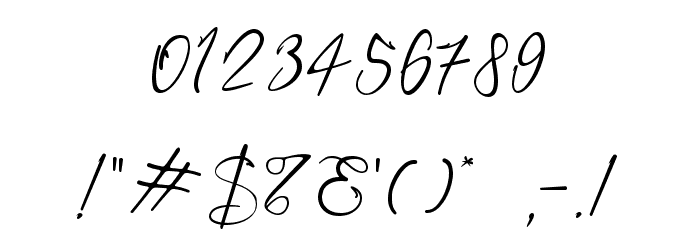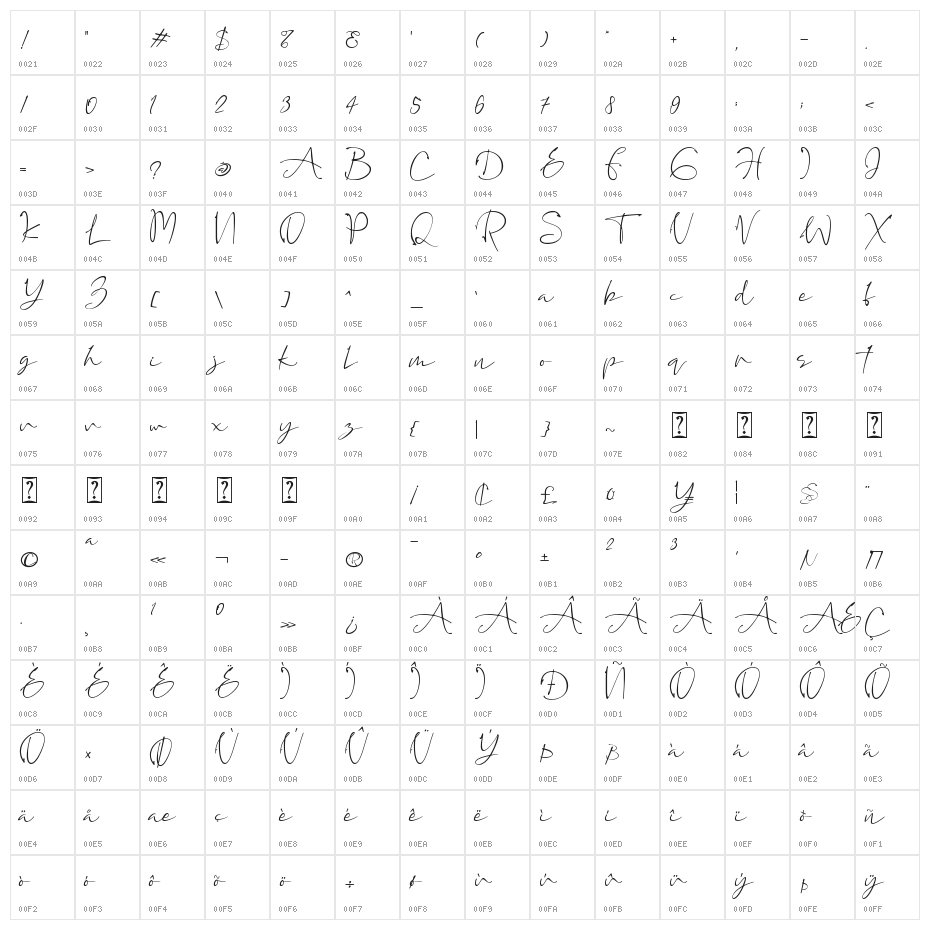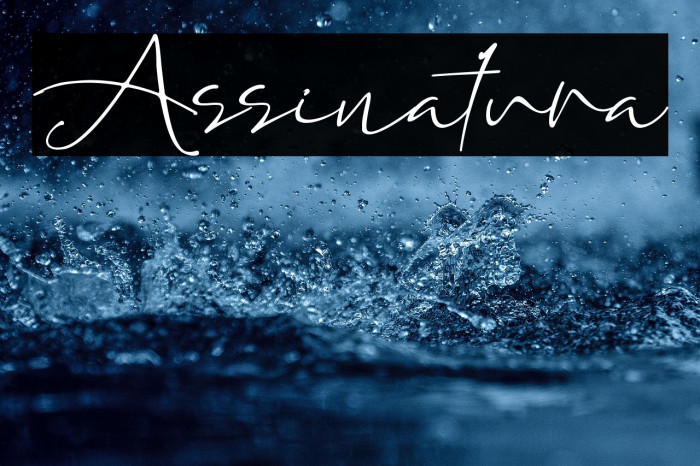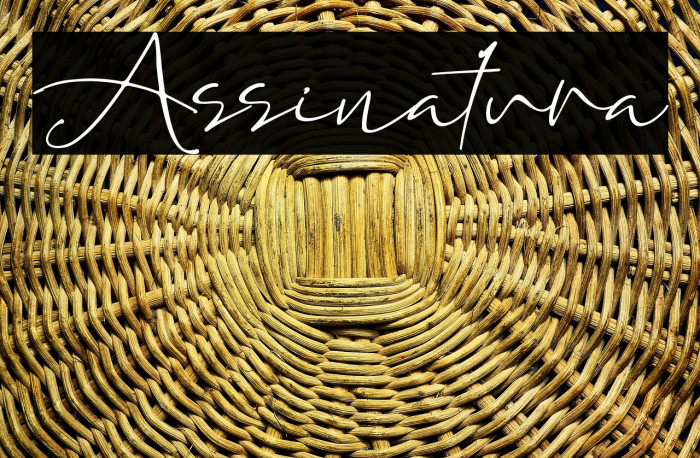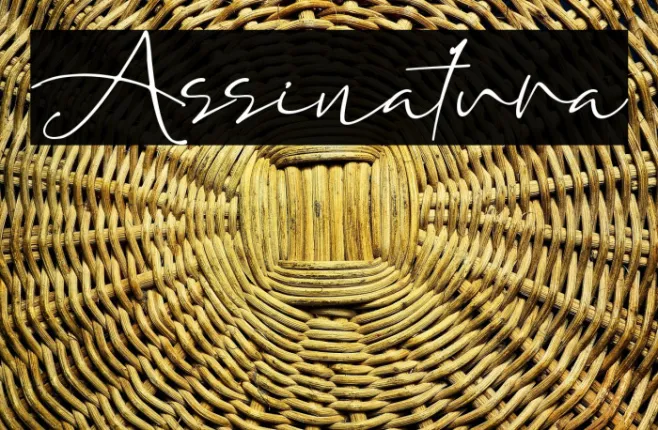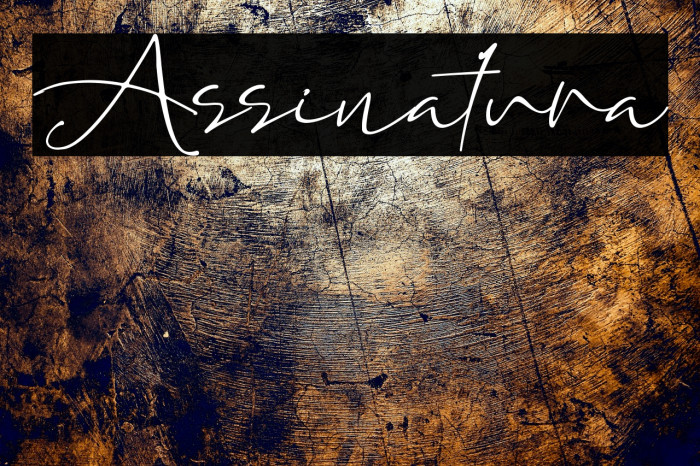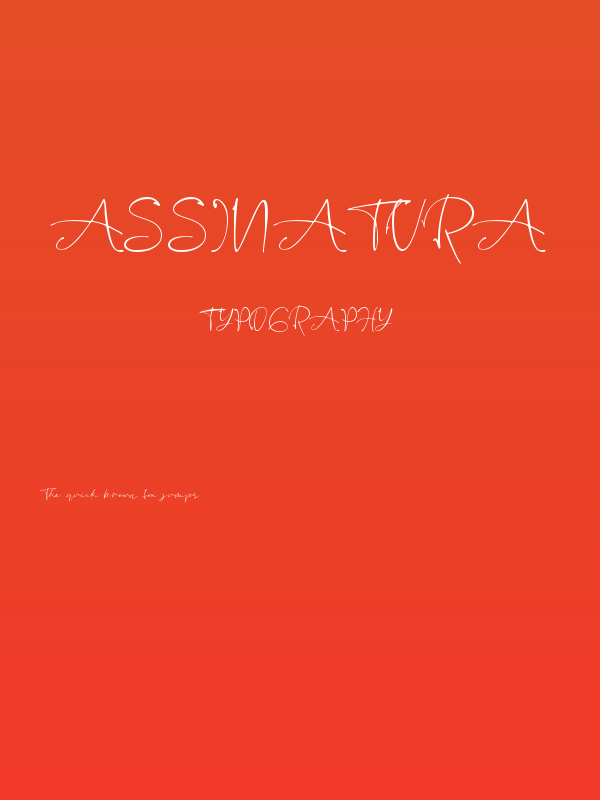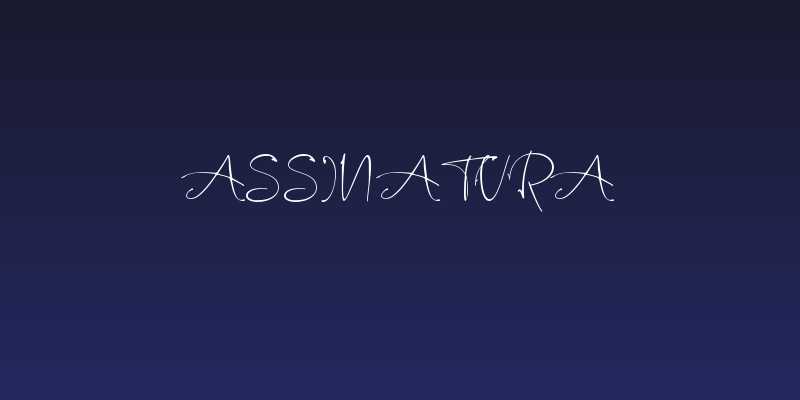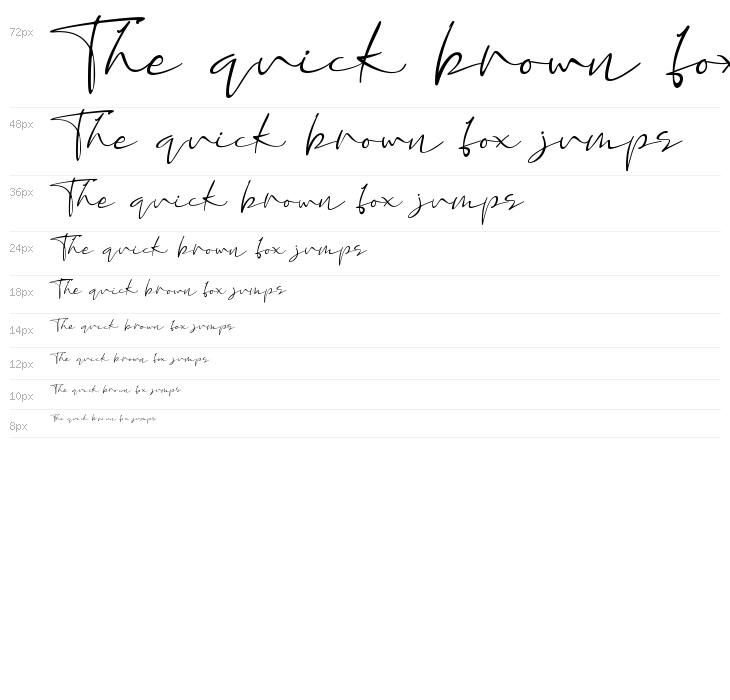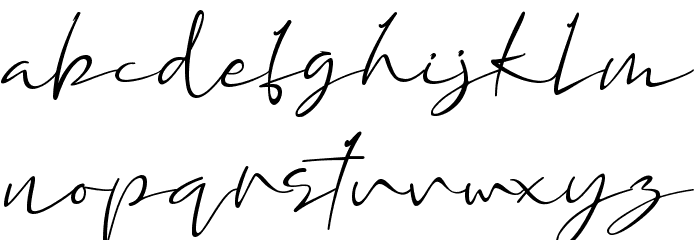
Assinatura Font
Assinatura Description
This font features a flowing, cursive style that mimics the elegance of handwritten script. Each letter is connected, creating a seamless and fluid appearance. The strokes vary in thickness, adding a dynamic and lively feel to the text. The uppercase letters are bold and prominent, while the lowercase letters maintain a consistent flow. Numbers and special characters are designed to match the overall aesthetic, ensuring a cohesive look across all text elements. This font exudes a sense of sophistication and personal touch, making it ideal for projects that require a handwritten or signature-like quality.